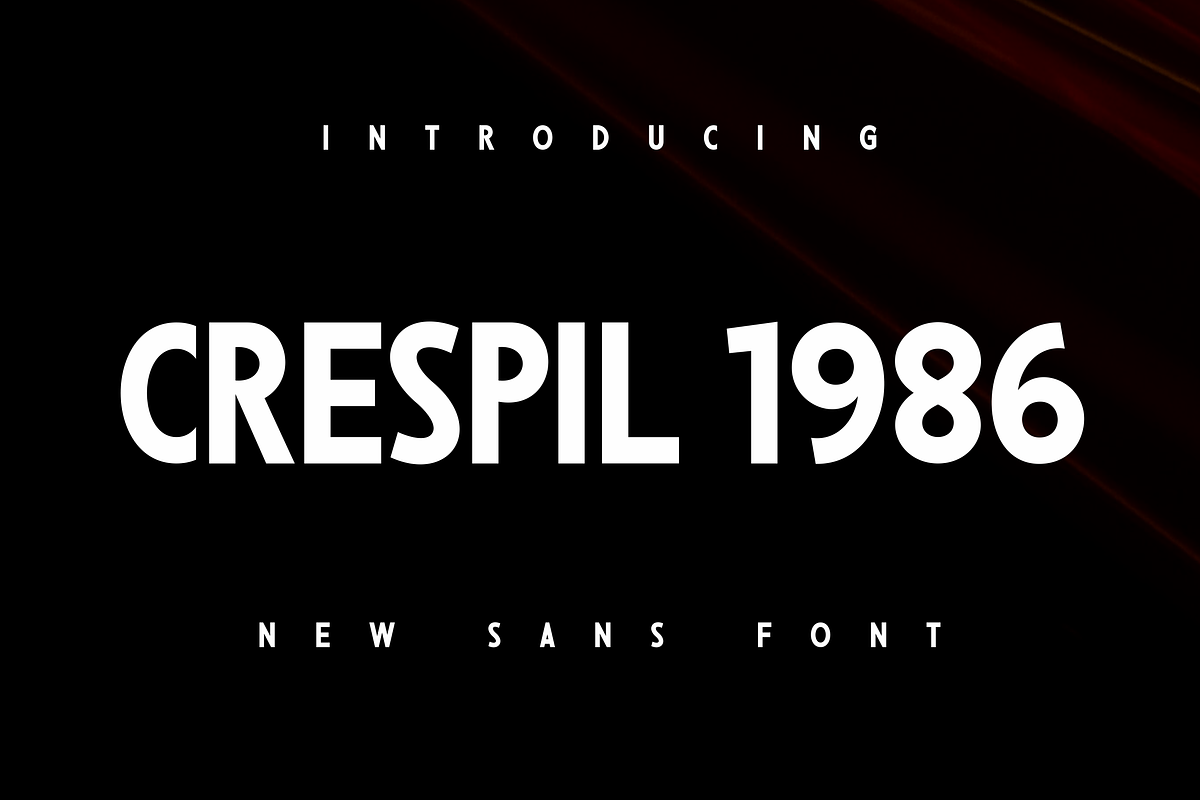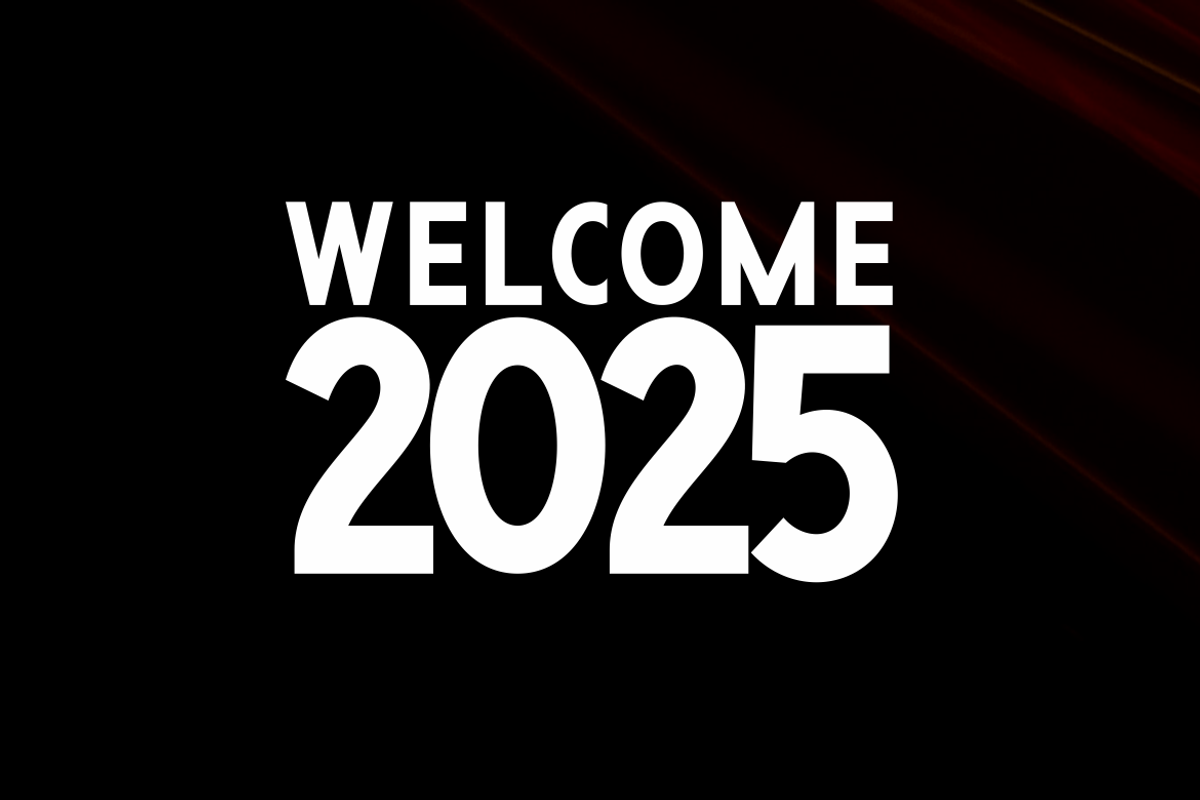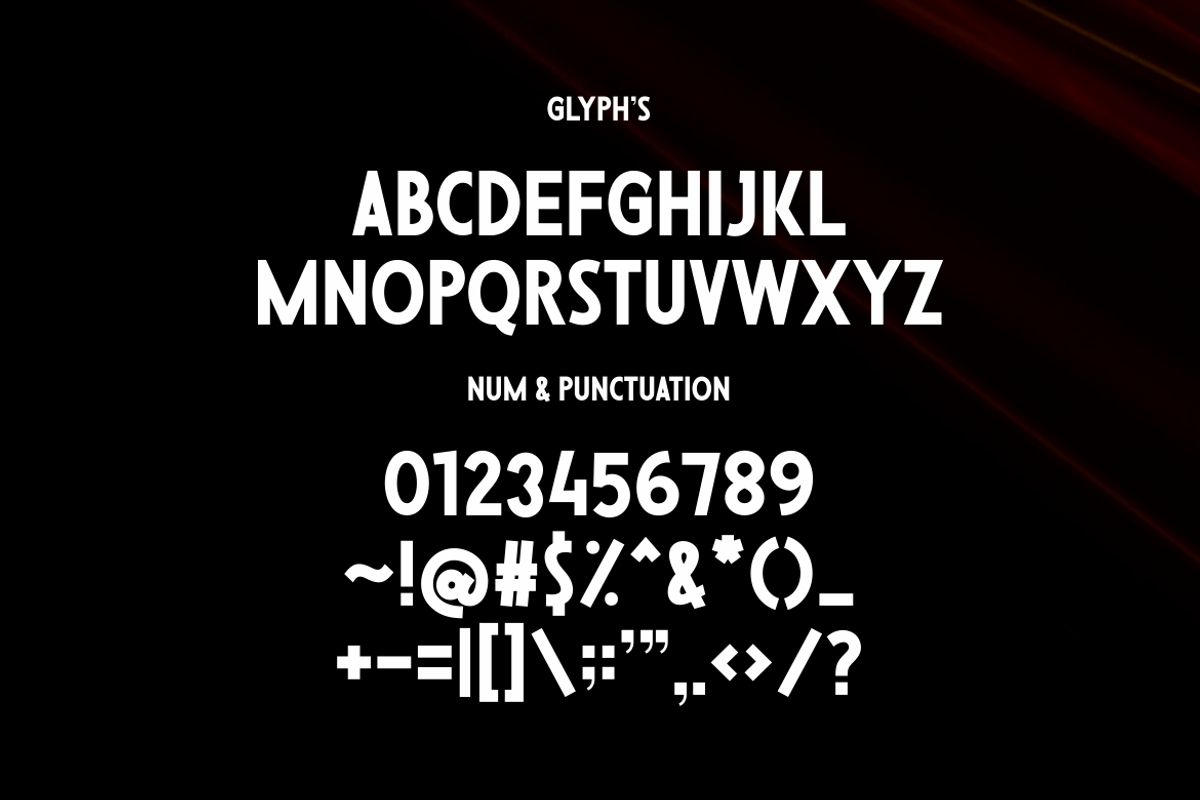
Crespil 1986
Crespil 1986 is a retro-inspired font that captures the essence of the 1980s. With clean lines and unique details, this font is perfect for vintage projects, posters, logos, branding, and invitations. Highly versatile for various creative needs, Crespil 1986 brings a nostalgic touch to every design.